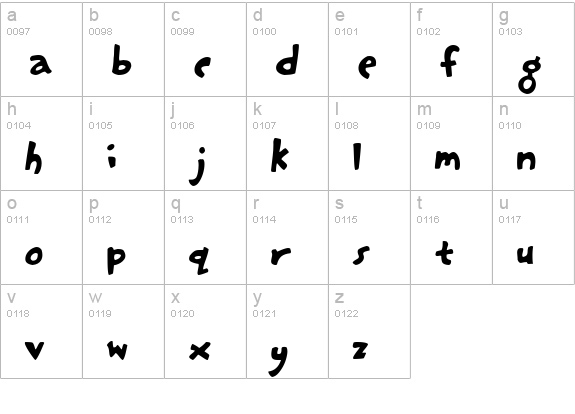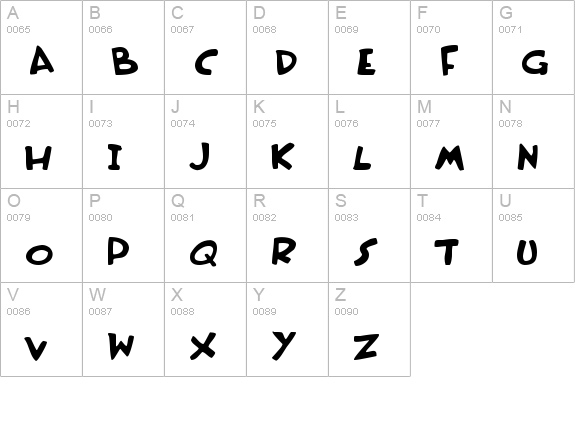
Hasty Pudding Font Details
Introducing Hasty Pudding font, a delightful and whimsical typeface that will add a touch of playfulness to any design project. With its charming curves and quirky letterforms, Hasty Pudding captures the essence of childlike innocence and carefree spirit. This font is the perfect choice for those seeking a fun and lighthearted aesthetic. Whether you're designing a children's book, a birthday invitation, or a cheerful logo, Hasty Pudding will bring a smile to your audience's faces. What makes Hasty Pudding even more appealing is that it is freely available to download at FontsMarket.com. Yes, you read that right – this fantastic font can be yours without spending a dime! FontsMarket.com is your go-to source for high-quality fonts that won't break the bank. So why wait? Get your hands on Hasty Pudding font today and let your creativity run wild. Whether you're a professional designer or someone looking to add a touch of whimsy to your personal project, this font will surely exceed your expectations. Download it now and embark on a journey of creativity and joy.